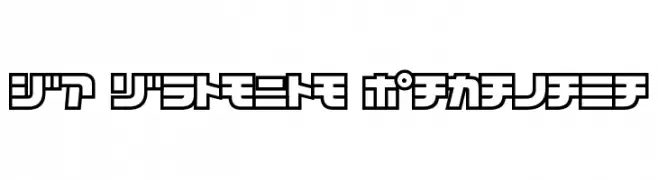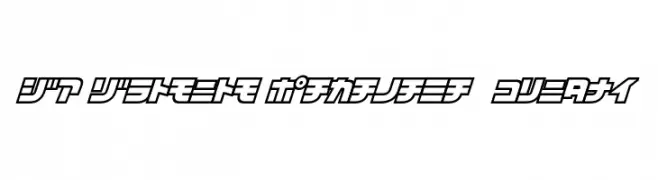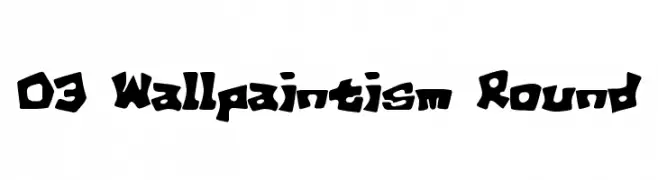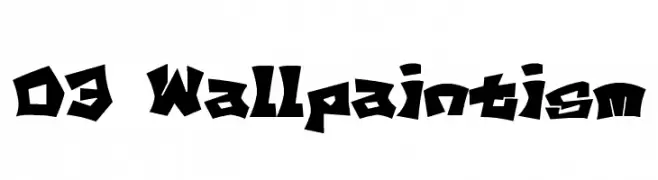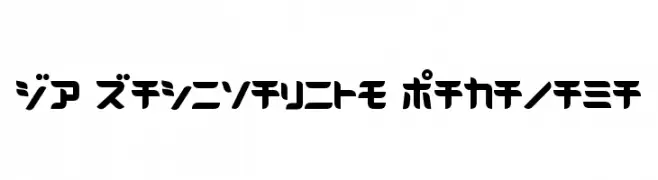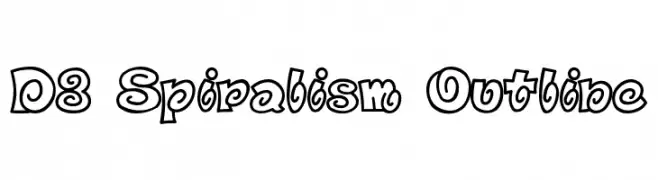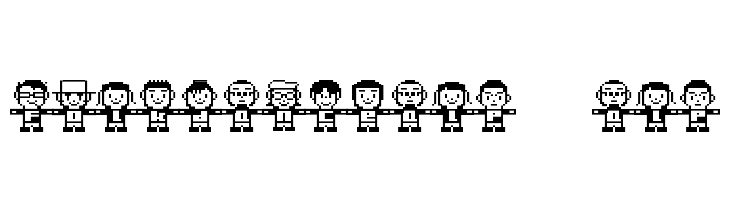
A bold, geometric font with a futuristic, outlined style.
A bold, geometric font with a modern, futuristic style.
A bold, oblique font with a futuristic and dynamic style.
A bold, graffiti-inspired font with rounded, irregular characters.
A bold, graffiti-inspired font with sharp, angular lines and dynamic style.
A bold, italicized font with a futuristic and dynamic style.
A bold, geometric font with a modern, futuristic style.
A decorative, maze-like font with a futuristic and intricate design.
A playful, spiral-themed outlined font with bold, whimsical characters.
A bold, futuristic font with angular, oblique letterforms and a modern aesthetic.